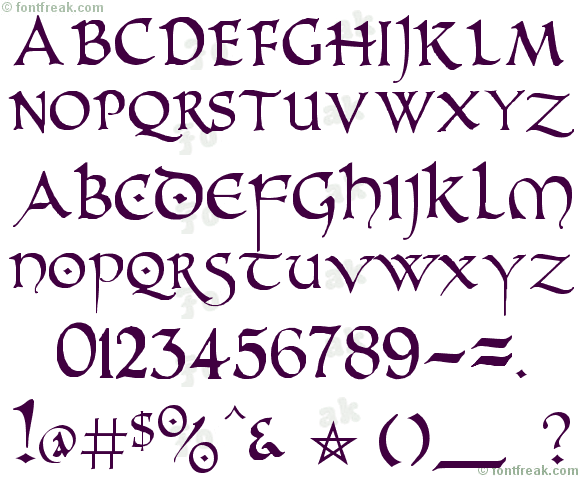
PR Uncial Alt Caps Extended
PR Uncial Alternate Capitals
The PR Uncial Alt Caps Extended font, designed by Peter Rempel, is a captivating display typeface that falls under the uncial category. Renowned for its artistic flair, this font features elongated letterforms with a distinct medieval influence, making it an excellent choice for projects that require a touch of elegance and tradition. The stroke weight is moderate, providing a balanced appearance that is both striking and legible. The letters are characterized by gentle curves and sharp serifs, giving them a unique personality while maintaining readability. The extended caps add a grandiose feel, perfect for emphasizing important text.
This font is ideal for a variety of specific use cases. It can be beautifully utilized in wedding invitations, where its decorative elements add a romantic touch. Movie posters also benefit from its distinctive style, capturing the attention of potential viewers with its historical connotations. Additionally, restaurant menus can leverage this font to evoke a sense of authenticity and charm, particularly in establishments that focus on traditional cuisine. Graphic designers and content creators will find this font particularly appealing for branding projects, as it can add a memorable visual identity to logos and promotional materials.
The target audience for the PR Uncial Alt Caps Extended font includes graphic designers, small business owners, and anyone looking to infuse their projects with a sense of artistry and historical resonance. This font stands out due to its unique combination of elegance and readability, making it a versatile choice for both professional and personal projects. For those interested in exploring its potential, the PR Uncial Alt Caps Extended font free download offers an accessible opportunity to enhance your creative toolkit.